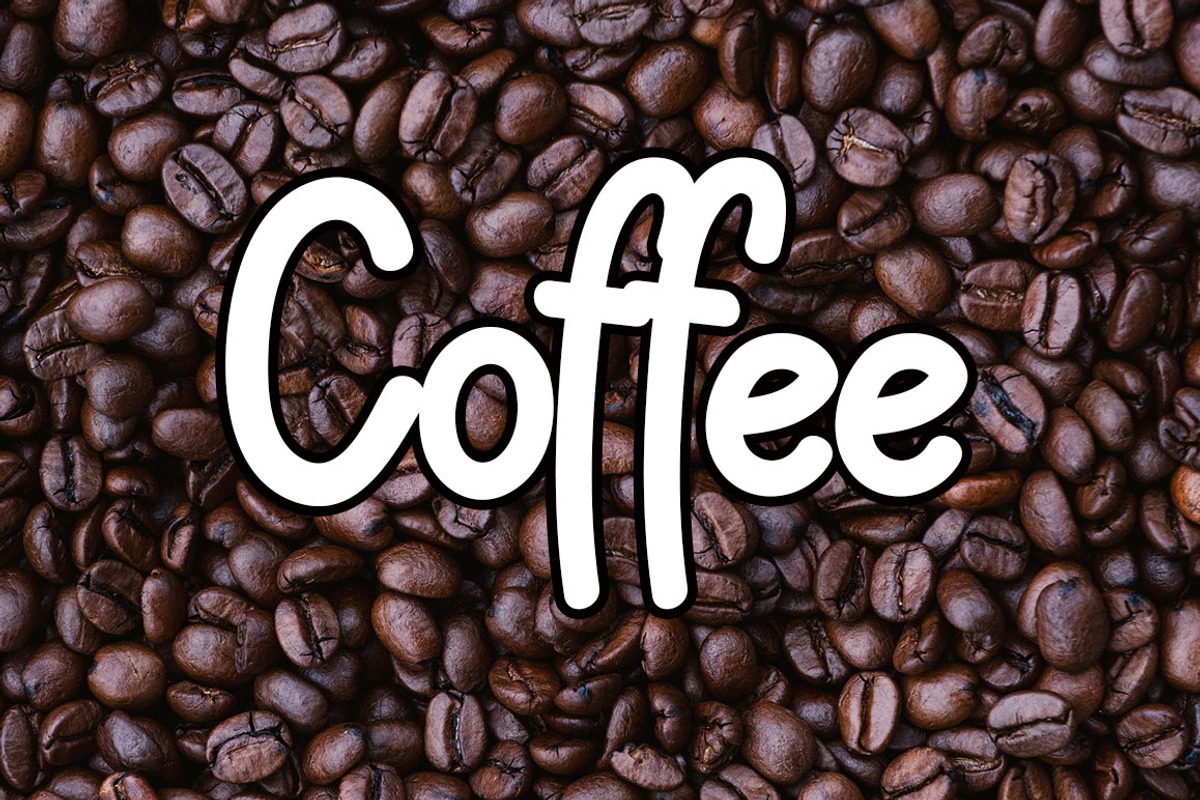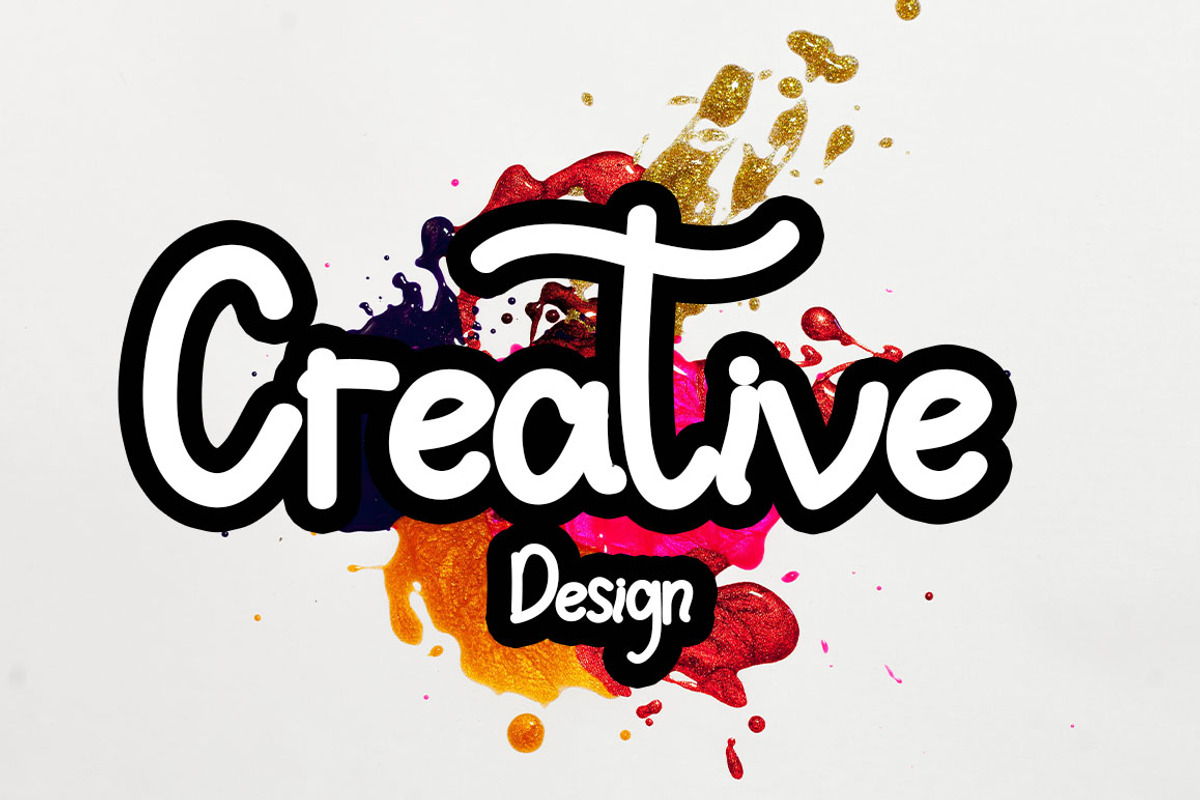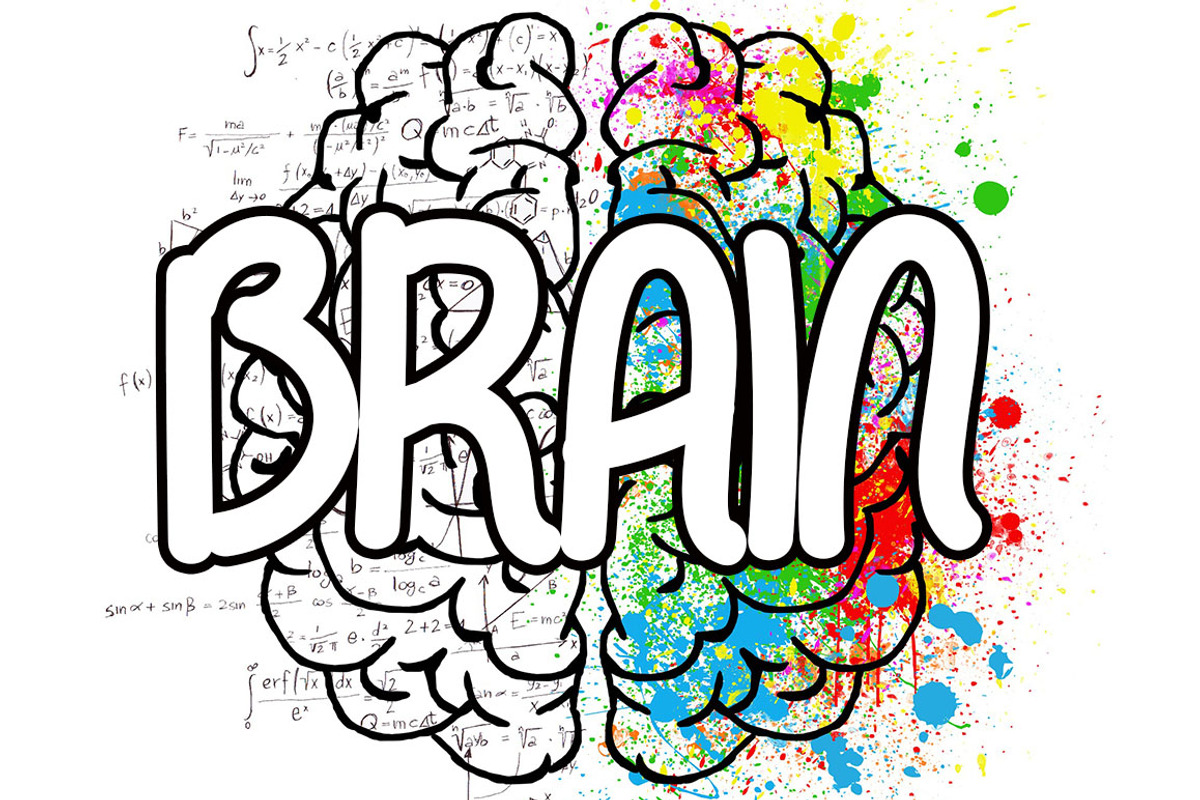
Creative Deisgn
Creative Design is a simple and flowing handwritten font. Fall for its ravishing style and use it to create gorgeous wedding invitations, beautiful stationary art, eye-catching social media posts, and much more!